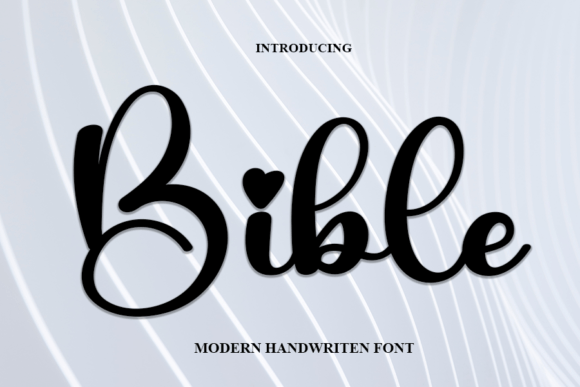
Bible Font: The Secret to Crafting Unforgettable Stories
Have you ever stumbled upon a design that instantly captured your attention, making you feel like you’re part of a special story? That’s the magic of great typography. It’s a moment that sparks creativity and inspires us to push the boundaries of what’s possible. For designers, the perfect font can be the difference between an average design and an unforgettable one.
Bible Font is a casual and friendly handwritten script font that’s designed to elevate any creation. Whether you’re working on a personal project or a commercial design, this font has the potential to add a touch of warmth and personality to your work. With Bible Font, you can create designs that feel approachable, inviting, and full of character – making it a valuable asset to any designer’s library.
So, what makes Bible Font so special? Its unique blend of friendliness and sophistication makes it perfect for a wide range of applications, from branding and advertising to digital products and editorial design. Whether you’re looking to add a touch of whimsy or a dash of elegance, Bible Font is sure to deliver.
Bible Font Key Features
- Font Family: Bible Font is a specific font family designed to resemble handwritten script, often used in religious contexts.
- Unique Characteristics: Features a distinctive, cursive-like style with intricate letterforms and flourishes, evoking a sense of elegance and tradition.
Bible Font Review
As a designer, I was excited to dive into the Bible Font and see what it has to offer. Here’s my honest review.
The Bible Font is a beautiful and elegant script font that would be perfect for projects that require a touch of sophistication and elegance. It has a unique and intricate design that sets it apart from other fonts. The font is also highly legible, making it suitable for a wide range of applications, from headings to body text.
One of the major limitations of the Bible Font is its limited character set. It only includes uppercase and lowercase letters, as well as some basic punctuation marks. This makes it difficult to use for projects that require a lot of special characters or foreign language support. Additionally, the font is not highly customizable, which may be a limitation for designers who like to experiment with font styles and sizes.
Overall, I think the Bible Font is a great addition to any designer’s toolkit. Its unique design and high legibility make it a great choice for a wide range of projects. However, its limited character set and lack of customization options may be a drawback for some designers.
- Beautiful and elegant script design
- Highly legible and suitable for a wide range of applications
- Limited character set (only uppercase and lowercase letters, basic punctuation)
- Not highly customizable
Tips for Getting the Most Out of Bible Font
Use Bible font for creating inspirational quotes, Bible study materials, and Christian-themed designs.
Combine Bible font with other fonts to create a visually appealing design.
Experiment with different font sizes and styles to emphasize important points.
Bible font is commonly used for:
Church bulletins and newsletters
Christian event invitations
Bible study materials and devotionals
Alternatives to Bible Font for Designers
Carolyna Pro is a modern calligraphy font that offers a more elegant and sophisticated look compared to Bible Font. It’s ideal for designs that require a touch of sophistication and luxury, such as wedding invitations, luxury brands, and high-end magazines. While Carolyna Pro has a similar handwritten feel, it’s more refined and polished.